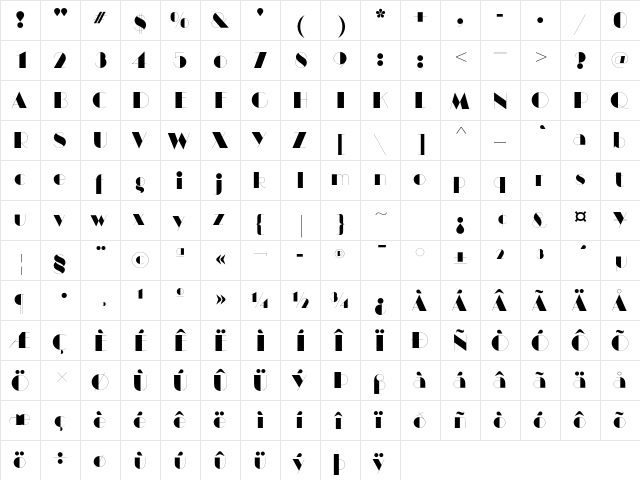
Manhattan ITC Std Regular
| Designer | Tom Carnase |
Design Context for Manhattan ITC Std Typeface
Manhattan ITC Std is a composed and adaptable typeface that performs quietly and consistently across a wide range of design contexts.